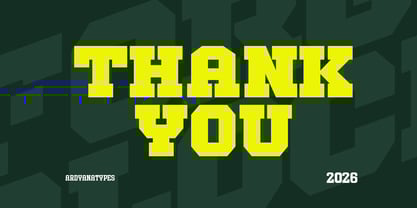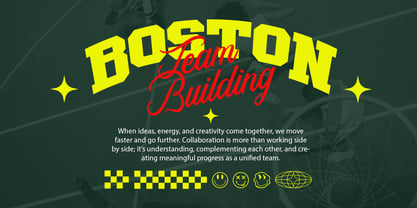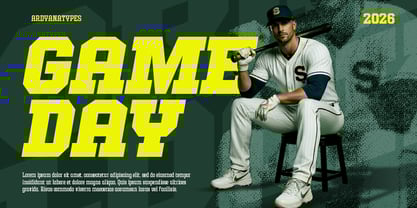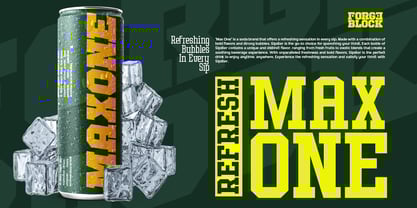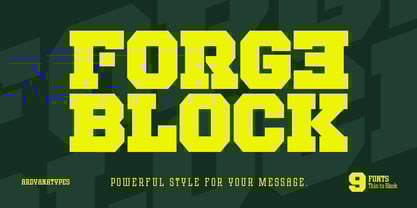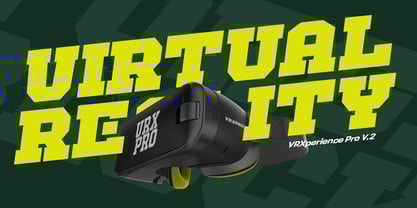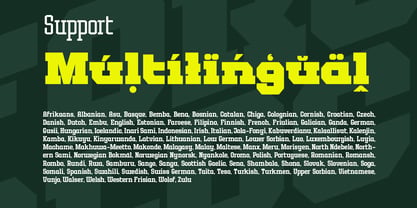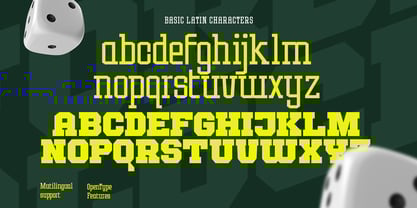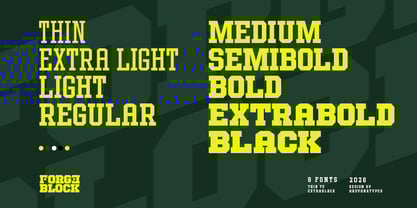
Forge Block
by Ardyanatypes
The Forge Block Font Family was designed by Ardyana Putra and published by Ardyanatypes. Forge Block contains 9 styles and family package options.
Forge Block is a bold display typeface designed to project strength, confidence, and unmistakable visual authority. Inspired by industrial aesthetics, sports typography, and contemporary branding, it features solid geometric construction, sharp edges, and powerful proportions that deliver immediate impact. Built for designers who need typography that stands its ground and commands attention, Forge Block performs exceptionally well in headlines, posters, branding systems, sports and esports graphics, technology-focused designs, product packaging, and digital promotions. Its strong presence and high legibility make it a reliable choice for messages that demand clarity, energy, and dominance.
Designers: Ardyana Putra
Publisher: Ardyanatypes
Foundry: Ardyanatypes
Design Owner: Ardyanatypes